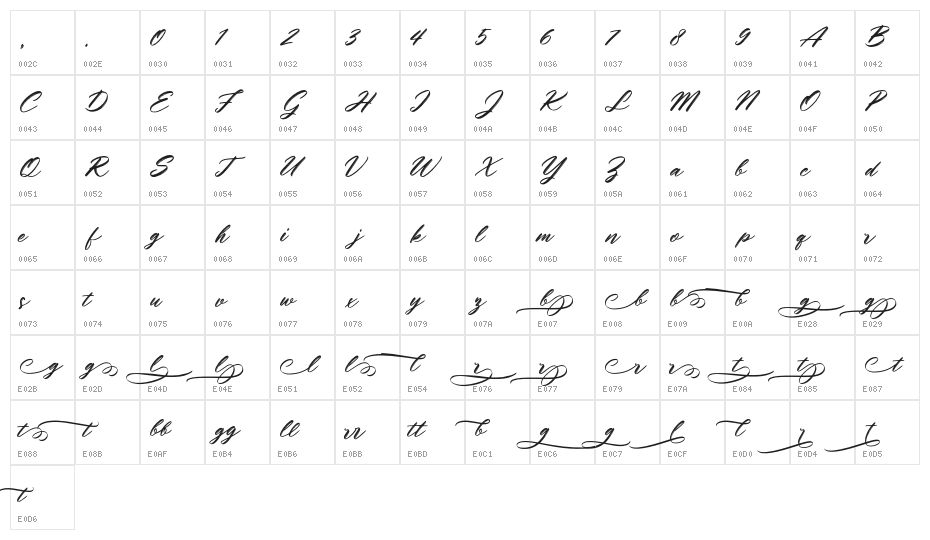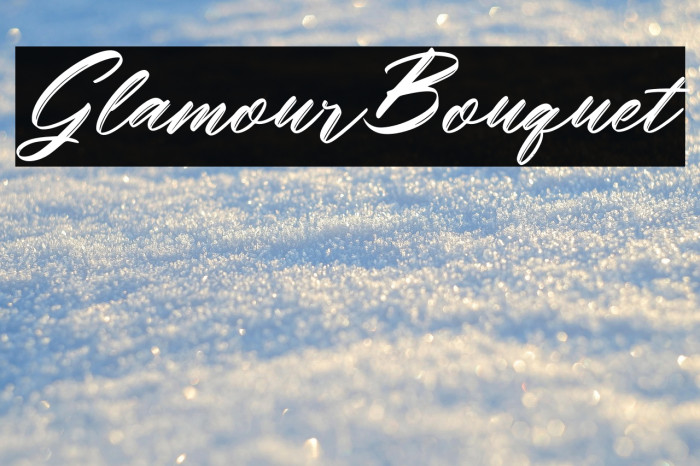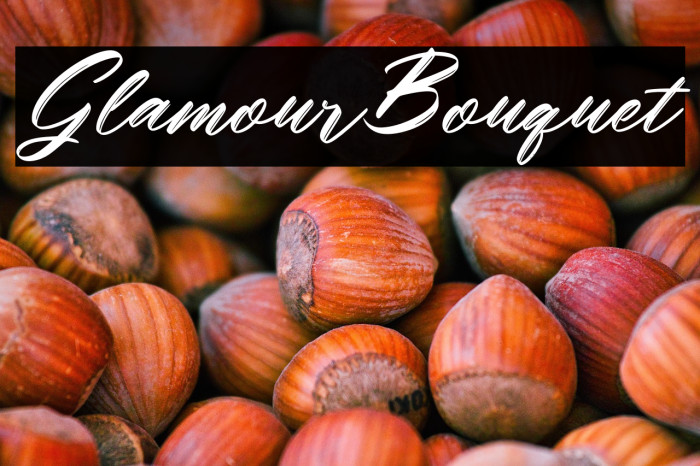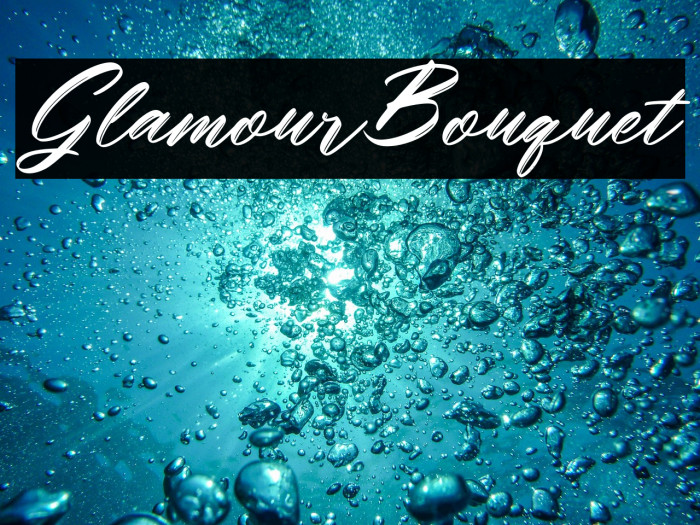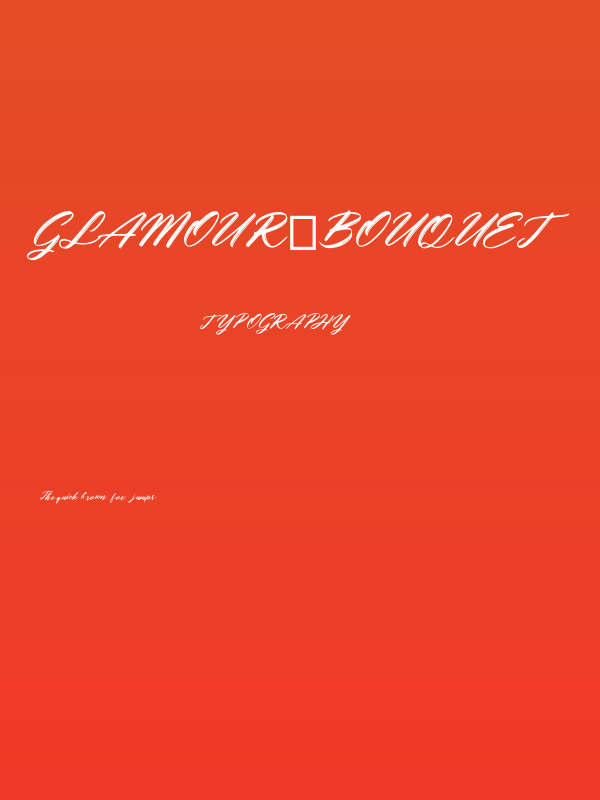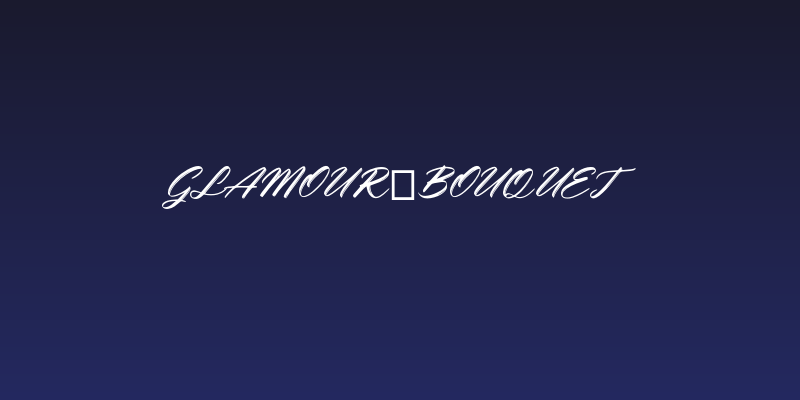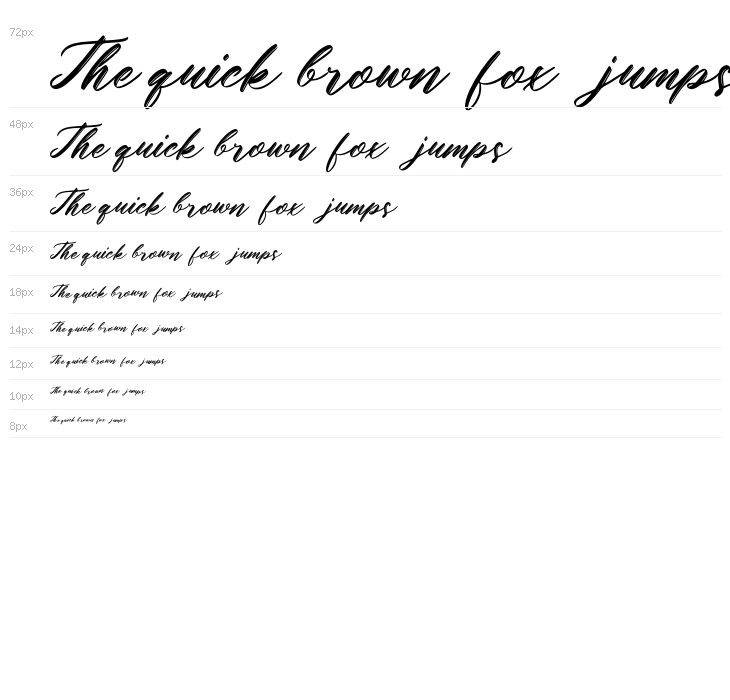
Glamour_Bouquet Font
Glamour_Bouquet Description
This font exudes elegance and sophistication with its flowing, cursive script style. Each letter is crafted with smooth, sweeping curves that give it a graceful and fluid appearance. The uppercase letters are particularly striking, with their elongated forms and decorative flourishes that add a touch of glamour. The lowercase letters maintain a consistent style, complementing the uppercase with their own subtle curves and loops. The numbers are equally stylish, maintaining the same cursive flow. This font is perfect for projects that require a touch of class and elegance, such as wedding invitations, luxury branding, or high-end product packaging. The overall design is both timeless and modern, making it versatile for various applications.
| Overall Style | Elegant, Sophisticated |
| Proposed Projects | Ideal for wedding invitations, luxury branding, and high-end product packaging. |